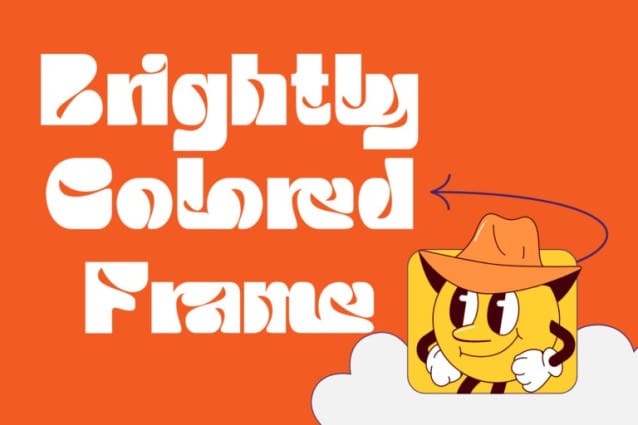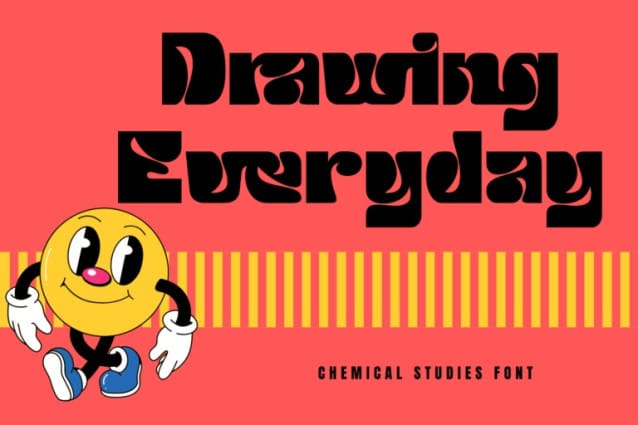
Chemical Studies Font
Chemical Studies Font is a reverse contrast typeface with a modern and clean look. A bold display font made in a rounded style with a fun and playful impression, with inktrap in upper and lower case adding uniqueness to this font. An elegant typeface, it’s perfect for corporate identities, websites, publications, titles, books, magazines, business cards, logos, product labels, packaging, or any kind of advertising purpose.
Chemical Studies was built with OpenType features and includes 100 ligatures, alternate, numbers, punctuation, and it also supports other languages.